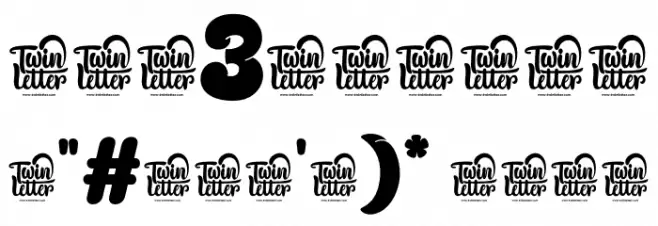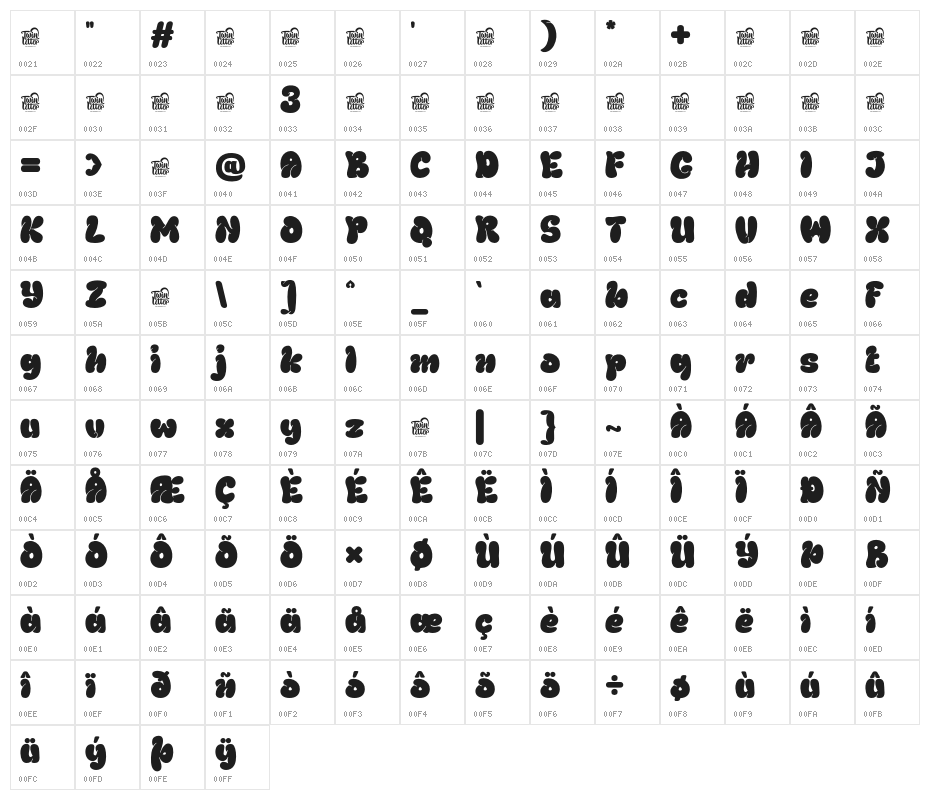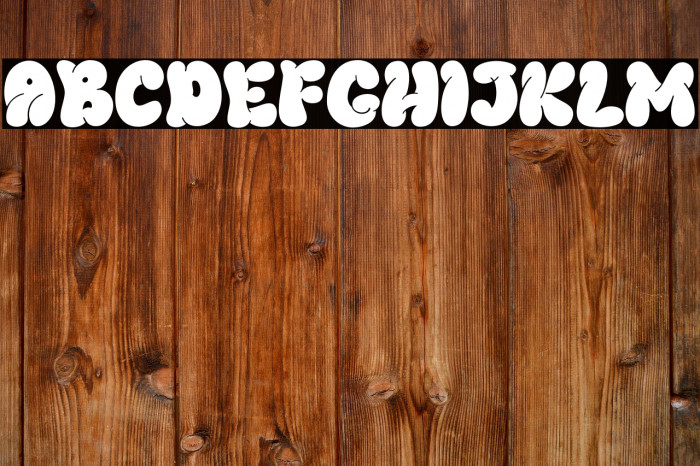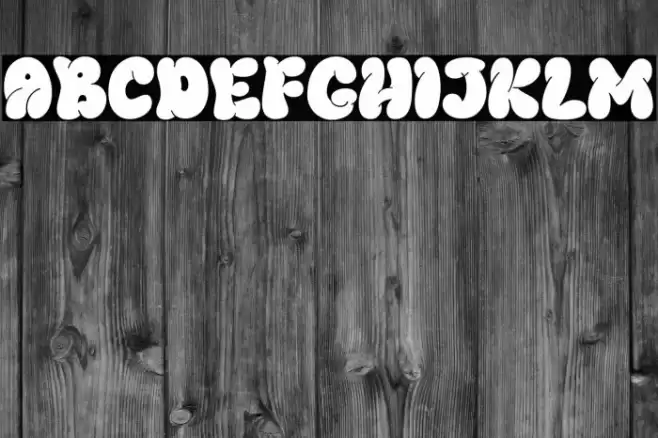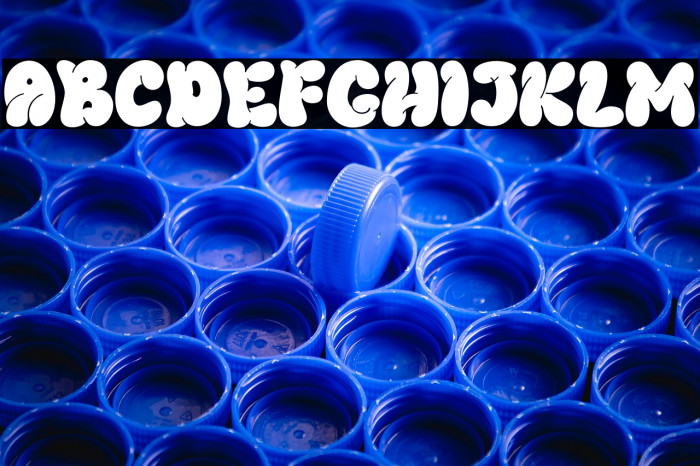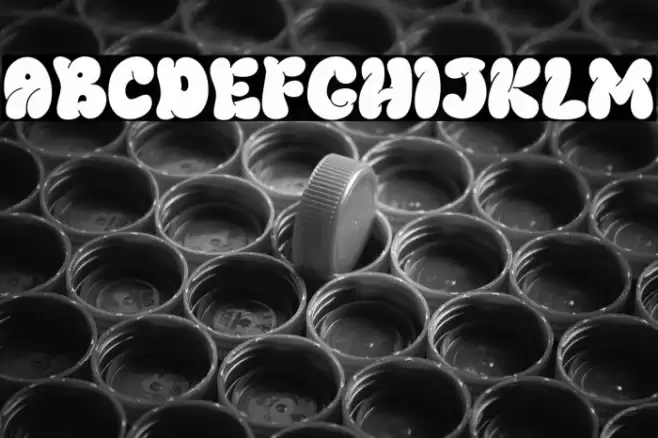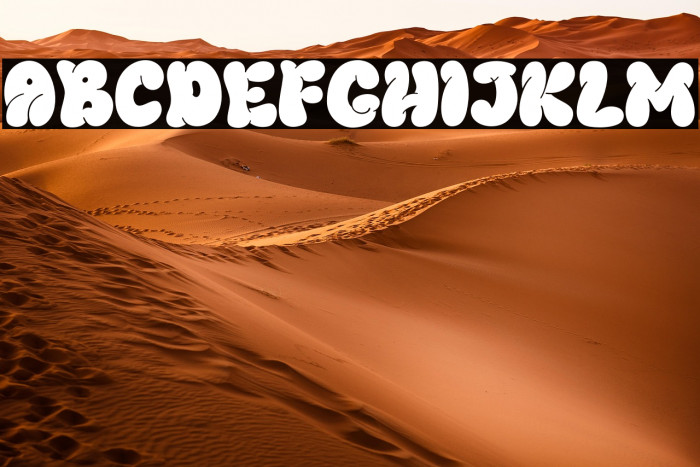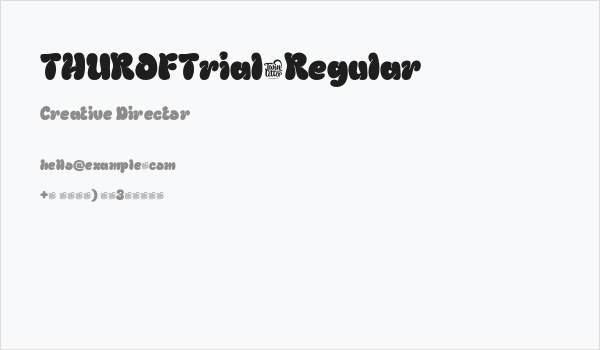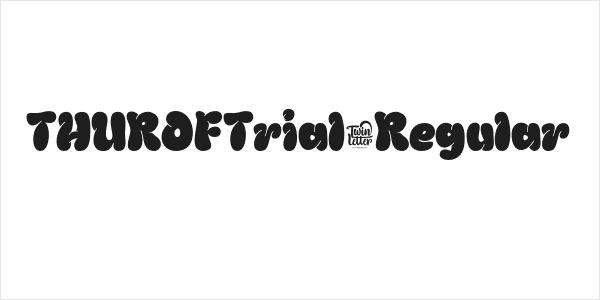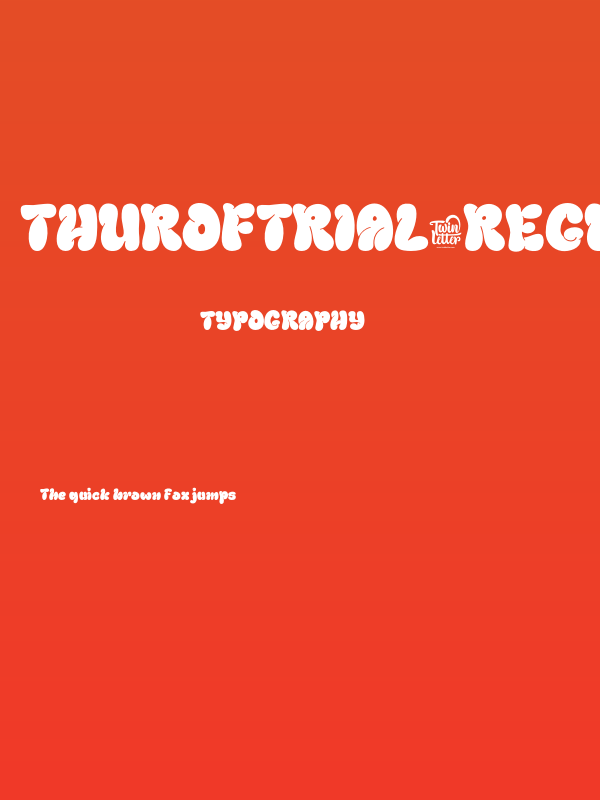
THUROFTrial-Regular Font
THUROFTrial-Regular Description
This font features a bold and playful design with rounded, bubbly characters that convey a sense of fun and creativity. The letters are thick and have a smooth, flowing appearance, making them stand out with a strong visual impact. The style is consistent across both uppercase and lowercase letters, as well as numbers and special characters, maintaining a cohesive look. The font's unique character shapes and heavy weight make it ideal for projects that require a distinctive and eye-catching typeface.
| Font Family | THUROF Trial |
| Overall Style | Playful, Creative |
| Proposed Projects | Ideal for children's books, playful branding, posters, and creative advertising campaigns. |